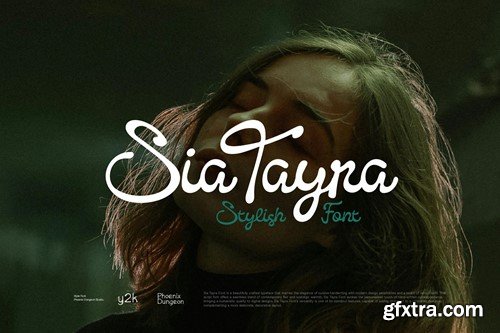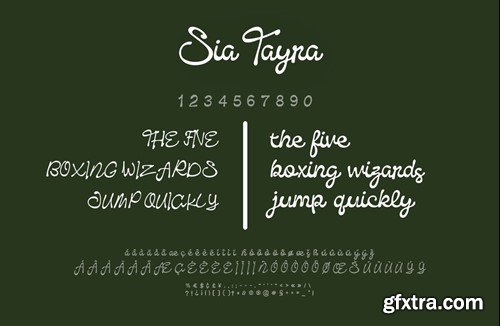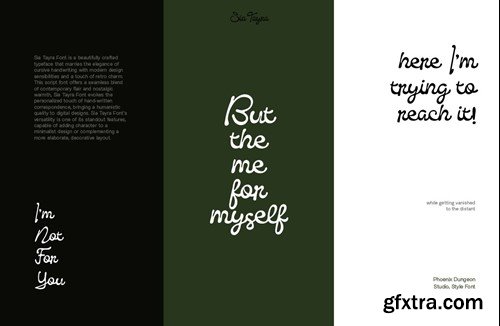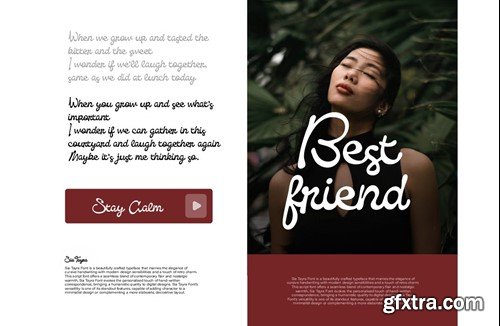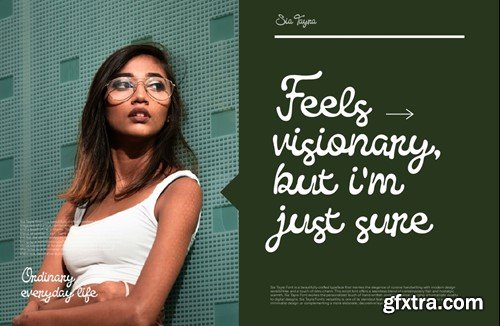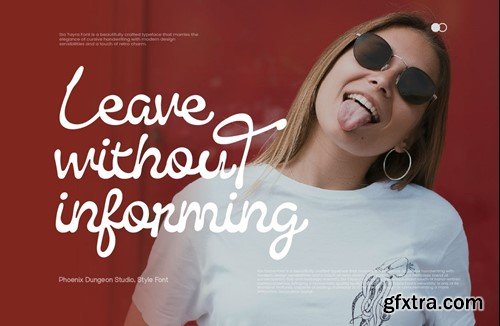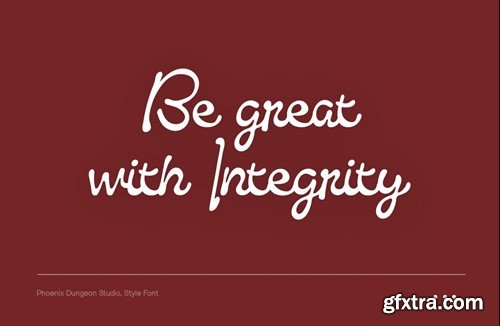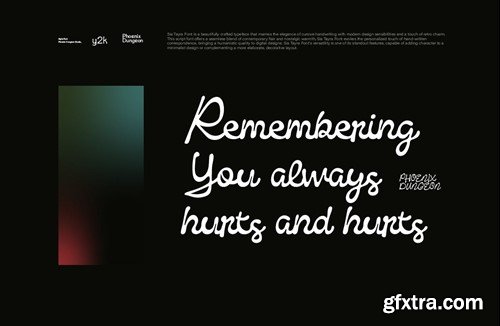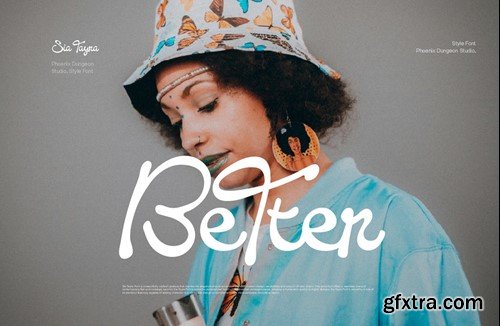
Sia Tayra Font
Sia Tayra Font is a beautifully crafted typeface that marries the elegance of cursive handwriting with modern design sensibilities and a touch of retro charm. This script font offers a seamless blend of contemporary flair and nostalgic warmth, Sia Tayra Font evokes the personalized touch of hand-written correspondence, bringing a humanistic quality to digital designs. Sia Tayra Font's versatility is one of its standout features, capable of adding character to a minimalist design or complementing a more elaborate, decorative layout. What’s in the package : Thank you